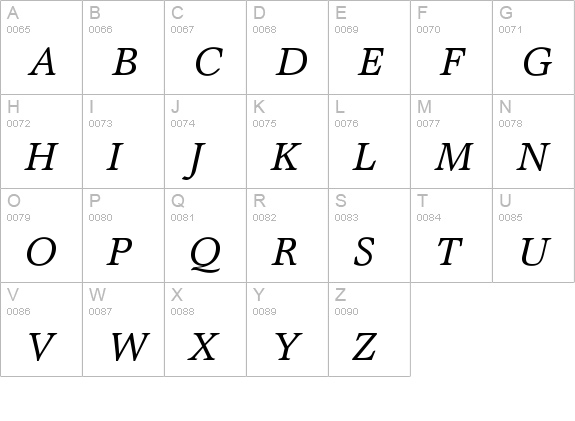
Garth Graphic Italic Font Details
Garth Graphic Italic is a distinctive, italic variant in the Garth typeface family \xE2\x80\x94 well suited to design and typography projects.
Garth Graphic Italic font is a sleek and modern typeface that exudes sophistication and elegance. Its unique italic design adds a touch of flair to any project, making it perfect for branding, editorial design, and more. The sharp angles and clean lines of Garth Graphic Italic give it a contemporary feel that is both eye-catching and versatile. What sets Garth Graphic Italic font apart is not only its striking appearance but also the fact that it is completely free to download. You can easily access this stunning font at FontsMarket.com, where you can add it to your collection without any cost. Whether you're a professional designer or someone looking to enhance their creative projects, Garth Graphic Italic font is a must-have addition that will take your work to the next level. Download it today and unleash your creativity with this exceptional typeface.